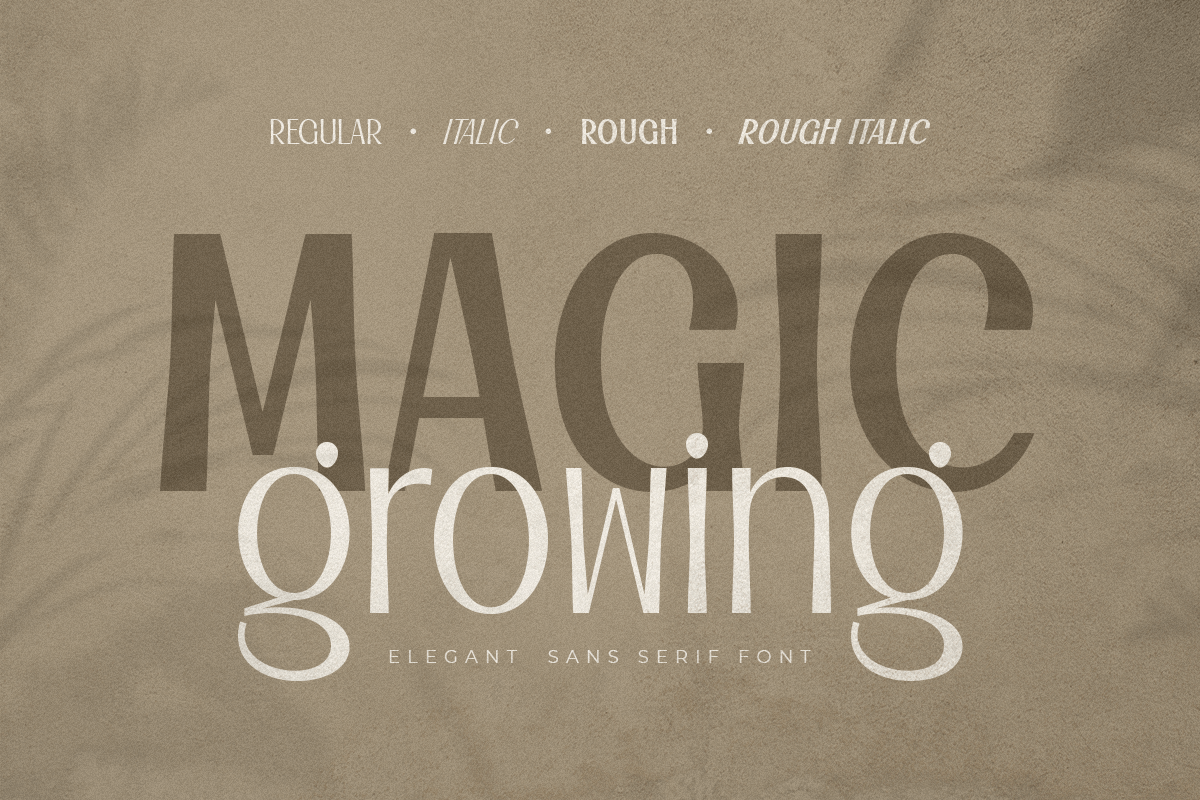
Magic Growing
-Elegant Sans Serif Font
A Sans serif that we created special for elegant branding needs, with extra style will be ready to add value of your brand. It so nice to leverage designer or product owner that need solutions to make their design look more elegant and modern. And specially for this font, We prepared any Styles to help you create unlimited variations for your creative needs.